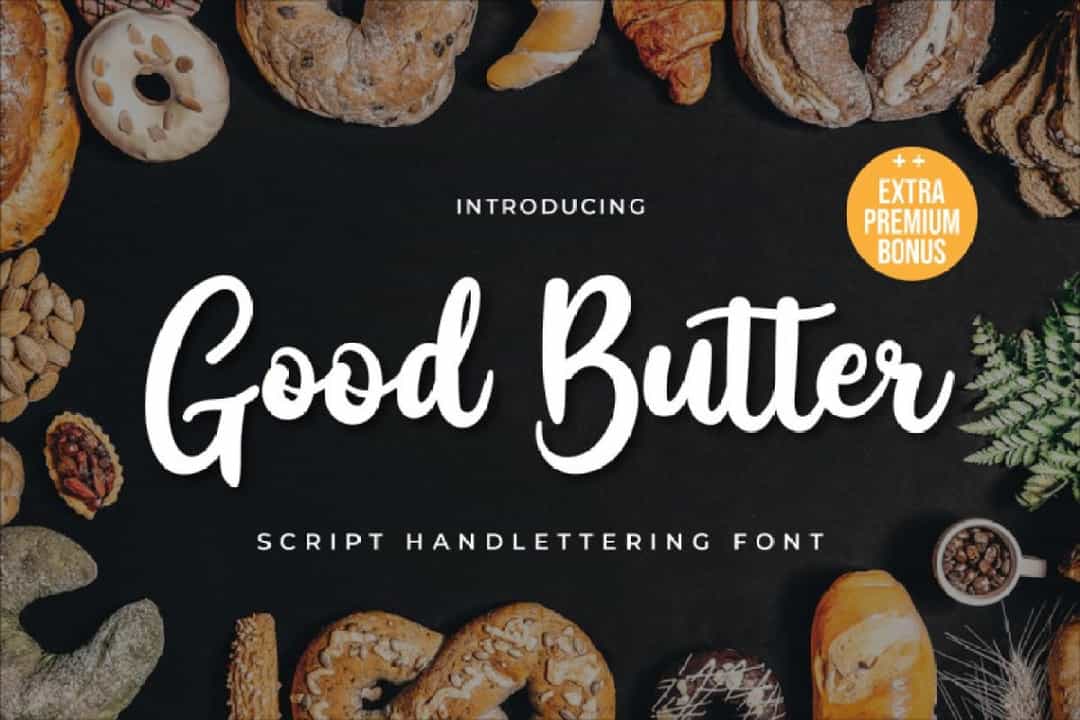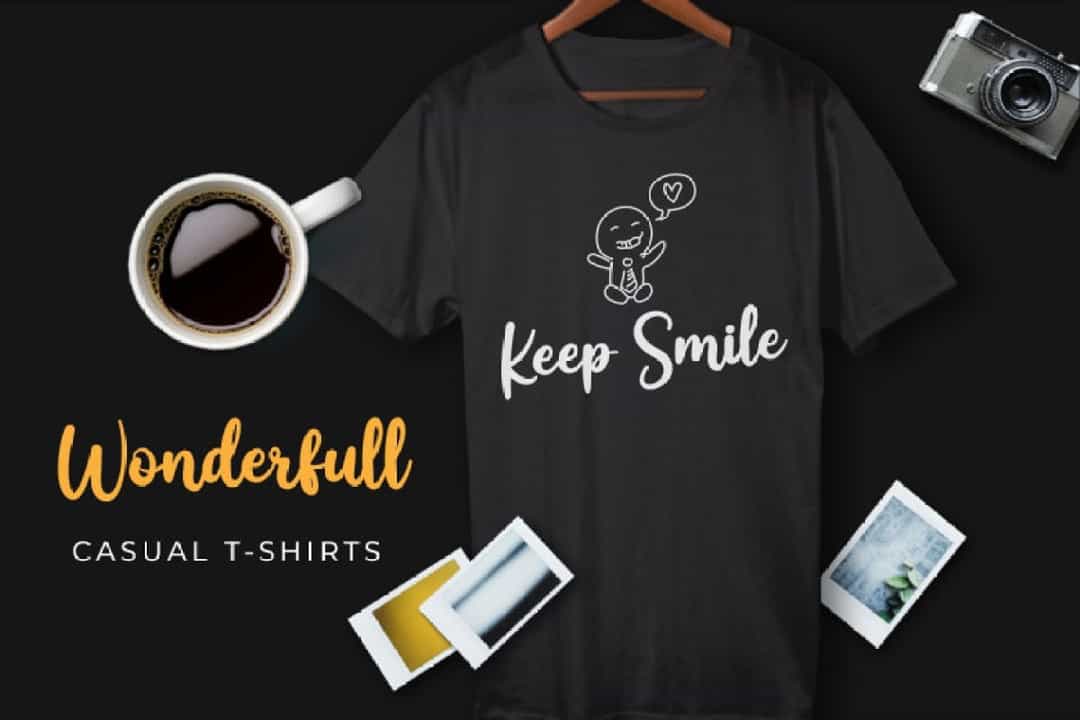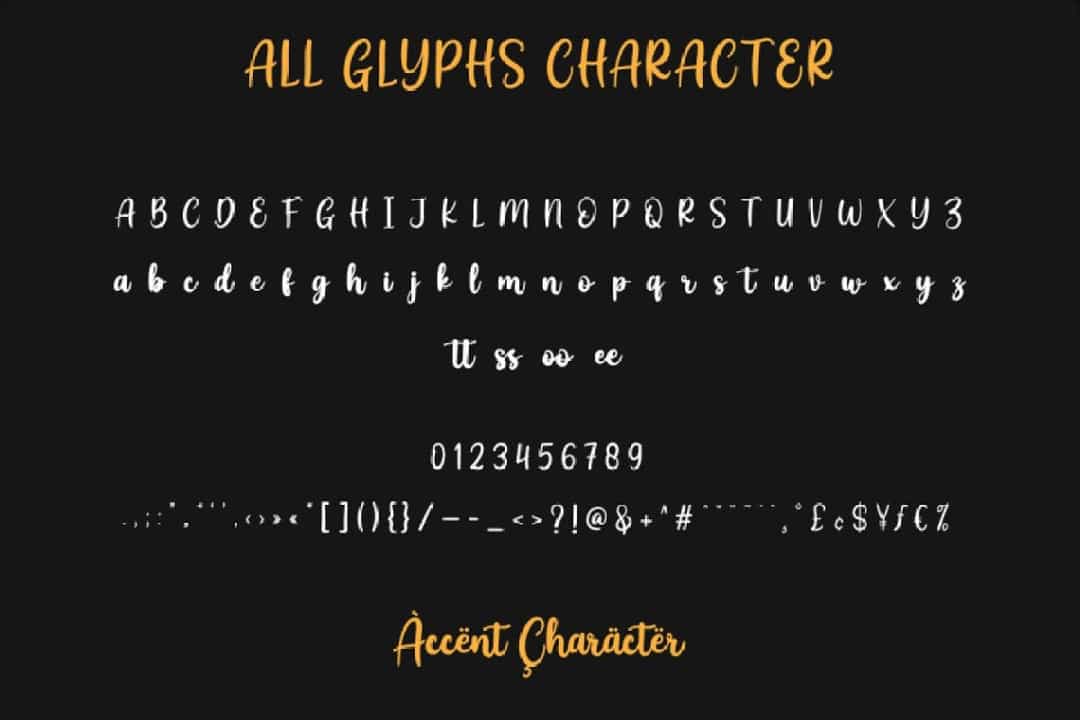
Good Butter was created with the superb yet casual handwritten lines which in turn provides a lovely serifs combination for the typography and makes it versatile for casual and formal wear.